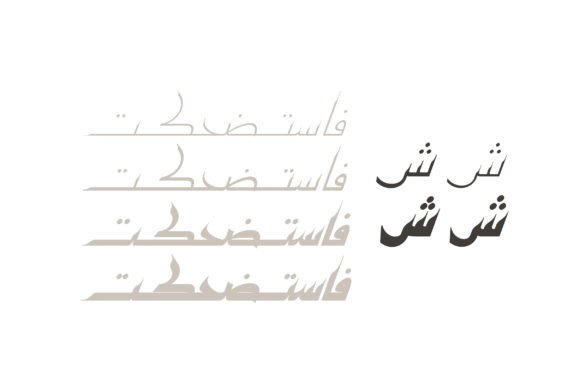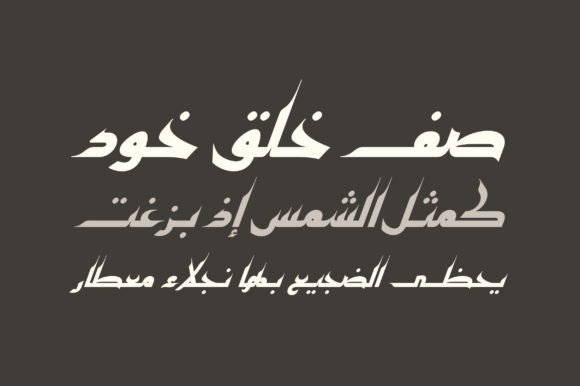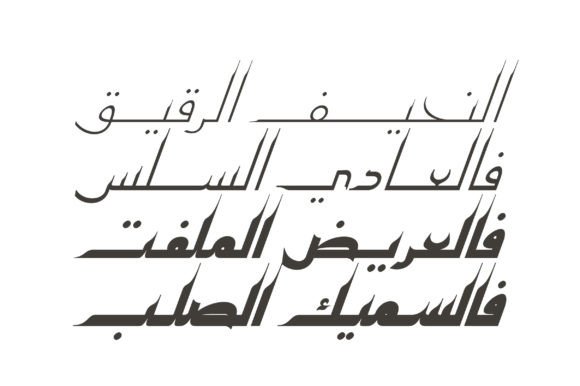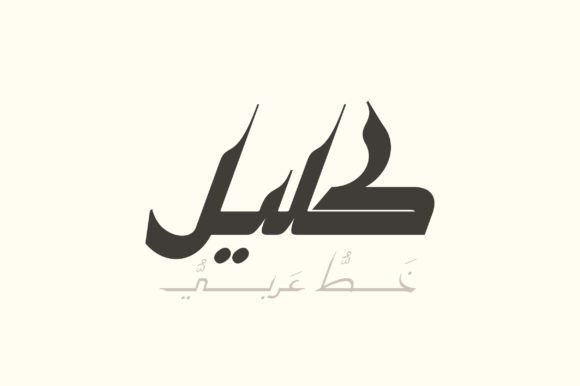
Introduction to Kaleel Font
Kaleel is an Arabic display font that is inspired by the calligraphic slip-painted pottery from the 10th Century.
It has a classy, elegant, and modern look that can be used for logos, branding, invitations, stationery, wedding designs, social media posts, and much more .